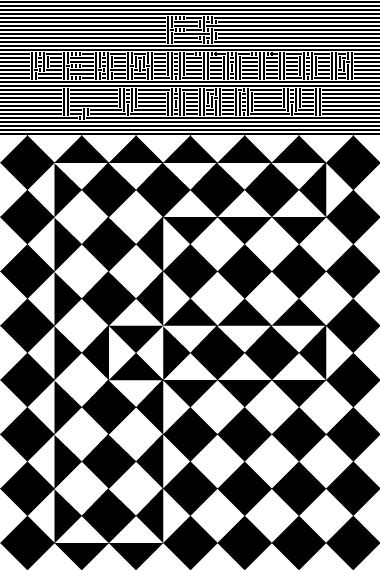
• This whole permuatation thing is so fun and easy to play around with. The original fs Permutation series worked with just the bricks that were available by default. Since then, the FontStructor has evolved, allowing for, in part, custom bricks. This new permutation was not possible before. This one is created just to show that custom bricks can be dragged and dropped on top of the existing ones replacing the standard bricks. The bricks used here are half high and half tall square bricks, centered.
Clone it and play around.
Instructions
1. Select a brick from the standard bricks or create your own custom brick.
2. Click and drag it to the brick in the first position in My Bricksuntil that brick turns gray.
3. Release.
4. Repeat steps 1-3 for the brick in the second position in My Bricks.
Learn. Enjoy. Share your permutation.
Superb demo pic. The whole series are fantastic. I could not find Permutation V. Congratulations. 10/10
An amazing bit of work - really innovative. 10/10(and any permutation of that)